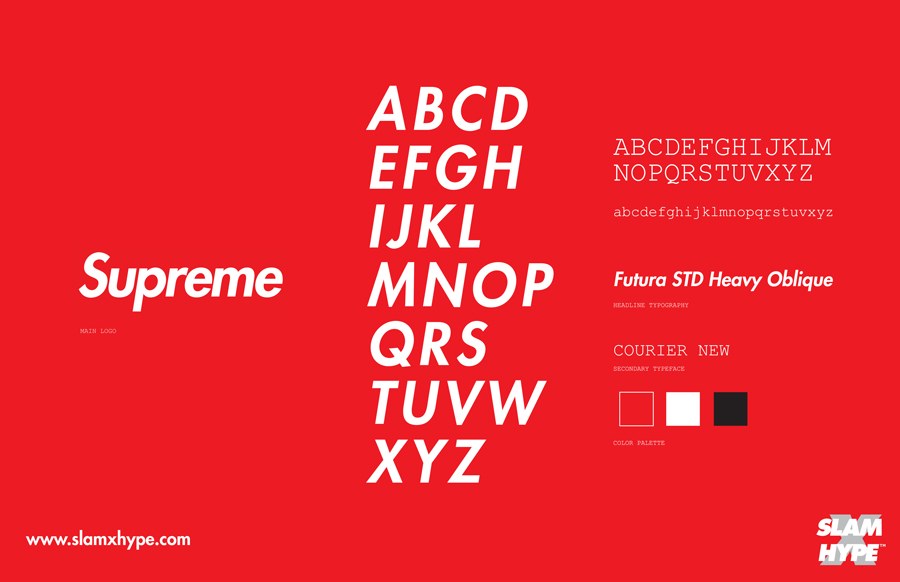
Supreme Logo Font Name
Supreme Logo Font Name. The text lettering employing for the supreme logo is futura bold italic font. Supreme logo font is best for title designing, book composing, poster printing, and business cards.
The exact story is still a little unclear, but basically supreme admitted to. The font used for supreme logo is very similar to futura heavy italic, which is a geometric sans serif font designed by paul renner and published by linotype. Placed in a box in 1979 by artist barbara kruger.
Placed In A Box In 1979 By Artist Barbara Kruger.
It is based on geometric shapes, especially the circle, similar in spirit to the bauhaus design style of the period. Submit your funny nicknames and cool. Bold letters are written in italics with a slope to the right.
You Can Achieve The Supreme Font Logo Using The Futura Font Here.
It's A Strong And Bold Font That Definitely Commands Attention.
The logo of supreme is simply its logotype portrayed in white on a red background. Transparent supreme logo png images free downloads logos. However, despite its high profile and recognition in america and around the.